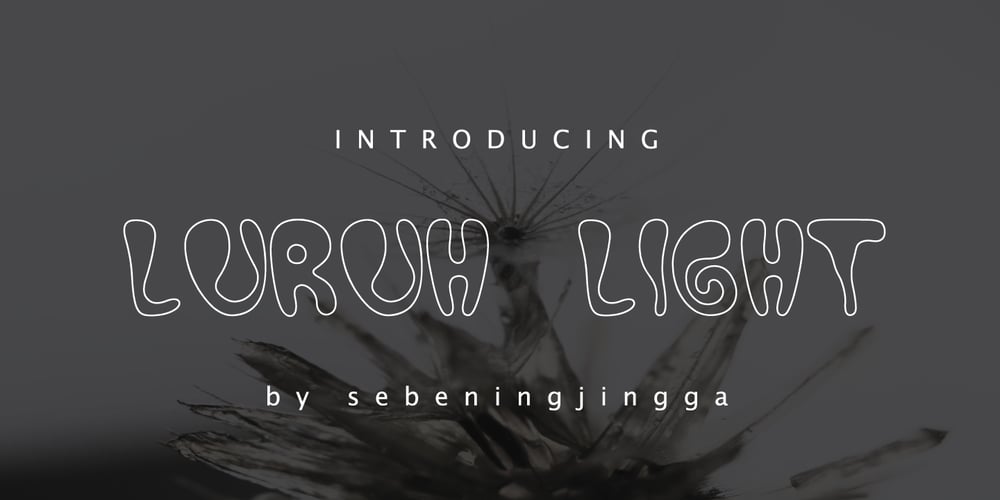
Luruh Light
Luruh Light font
Luruh Light Font Family was designed by Nur Firdaus and published by Sebeningjingga. Luruh Light contains 1 styles and family package options. Overview: Pixel perfect design. 1 style included. Works on PC & Mac Perfect for both printing and screen display. Usage:Luruh light font family is perfect for both printing and screen display, and is most suitable for modern design, technology, sci-fi, futuristic style, flat design and web design.